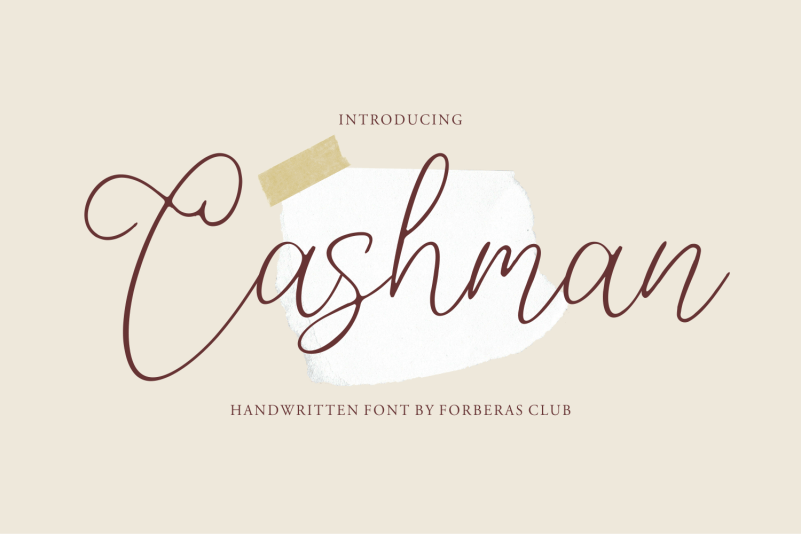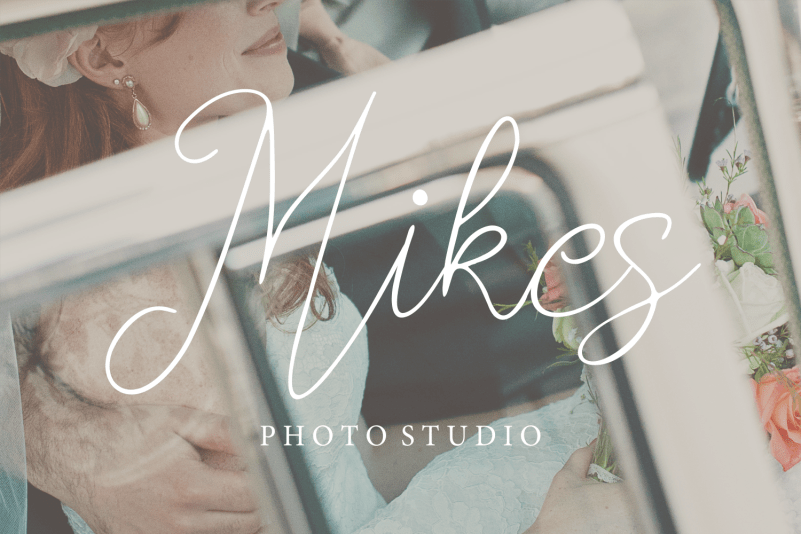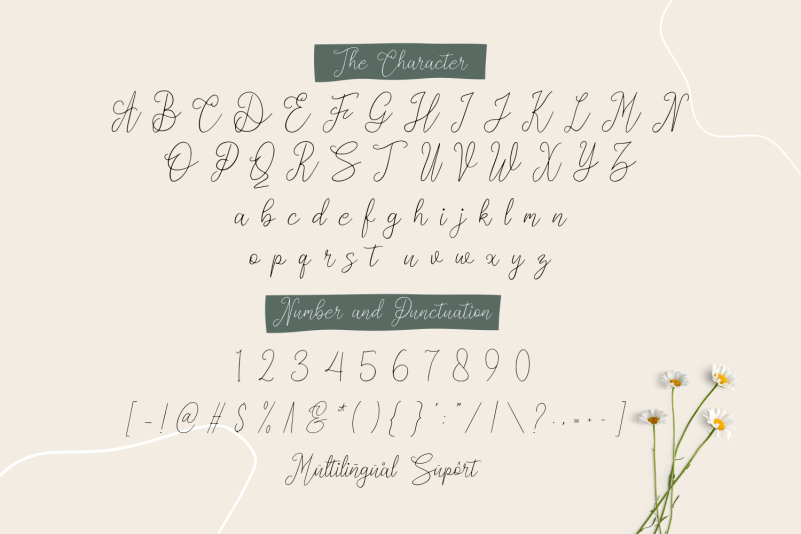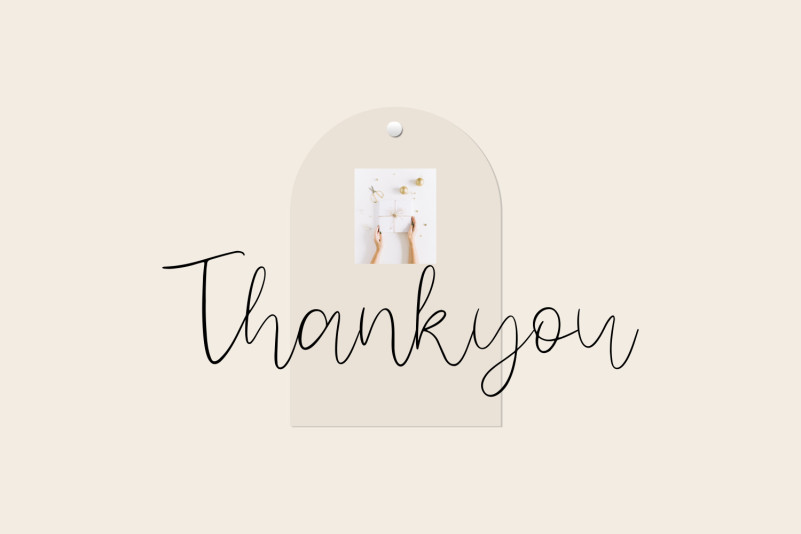
Cashman Font
Cashman Calligraphy Font is a sweet and delicate handwritten font. Dainty and joyful, this font will be ideal for writing wedding invitations, cards or any other design that may need a romantic, personalized touch!